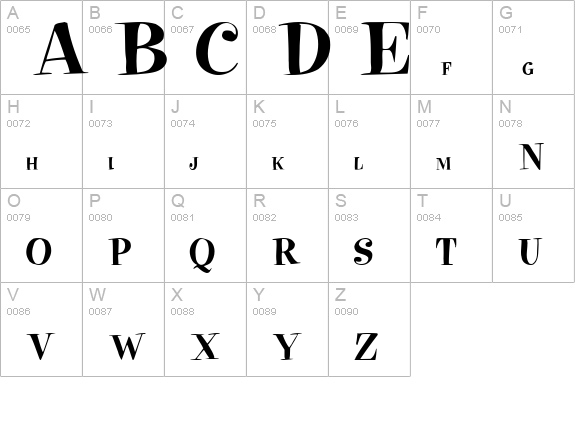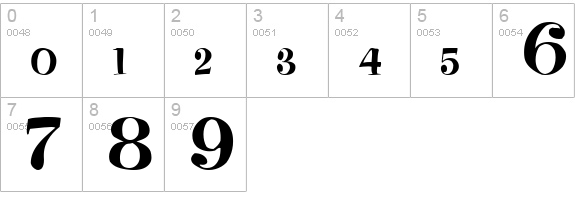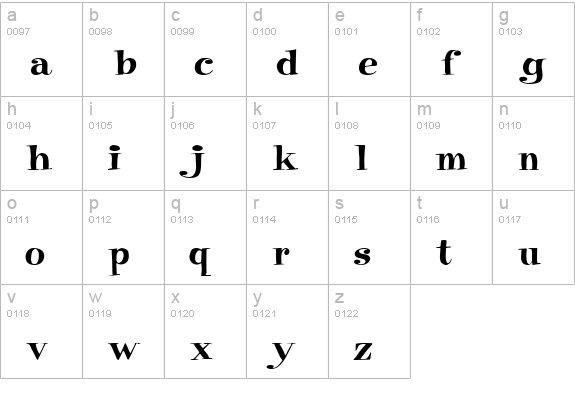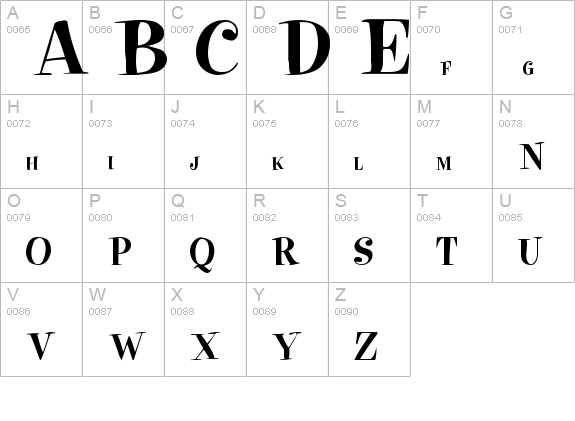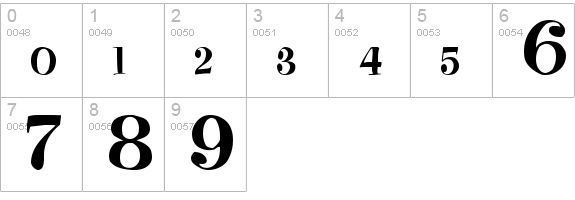
Pixie Font Details
Introducing Pixie Font - a whimsical and enchanting typeface that will instantly transport you to a world of magic and wonder. With its delicate curves and playful strokes, Pixie Font brings a touch of fairy dust to any design project. This font is perfect for adding a touch of charm and whimsy to your designs. Whether you're creating invitations for a magical birthday party, designing a logo for a fantasy-themed brand, or simply wanting to add a sprinkle of magic to your social media posts, Pixie Font is sure to captivate and delight. What's even better is that Pixie Font is completely free! That's right, this enchanting typeface is freely available to download at FontsMarket.com. You can easily access and use this font in all your design endeavors without breaking the bank. With Pixie Font, the possibilities are endless. Let your imagination take flight and watch as your designs come to life with a touch of whimsy and charm. Download Pixie Font today and let the magic begin!